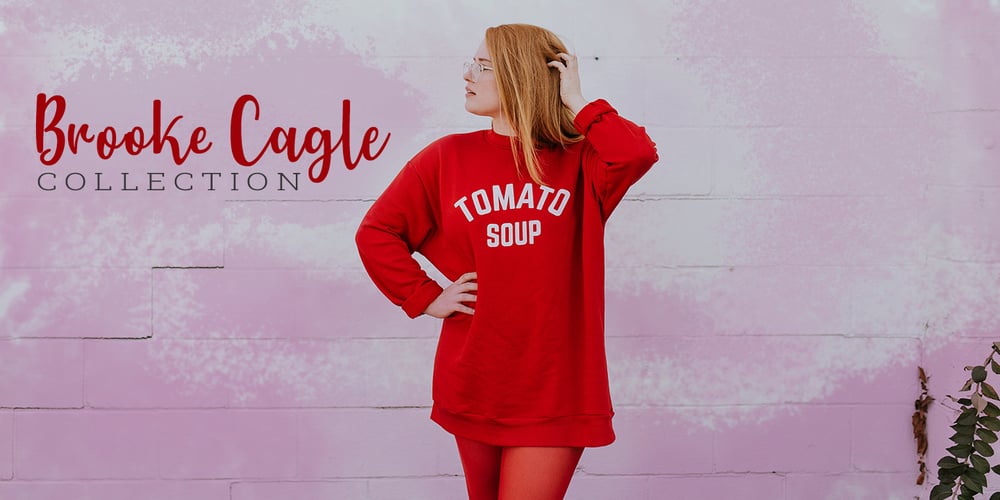
Jeniver Ellis Font Family was designed by Oki Candra Setiawan and published by OCSstudio. Jeniver Ellis contains 1 styles and family package options. Introducing my new font, Jennifer elis font made with a pen brush refined to look neat. like dance letters, smooth, clean and simple.Jennifer elis font are perfect for weddings, events, invitations, escort cards, table numbers, Quotes, displays, logos, blog sliders, special addresses, stamps, packaging, greeting cards, etc.Features: Basic Latin A-Z and a-z Numeral & Punctuation Ligatures 10 Alternate Swashes Script 592 Glyphs Sans 354 Glyphs Latin Pro Support Character ** Thank you for downloading my font, hopefully it’s useful **